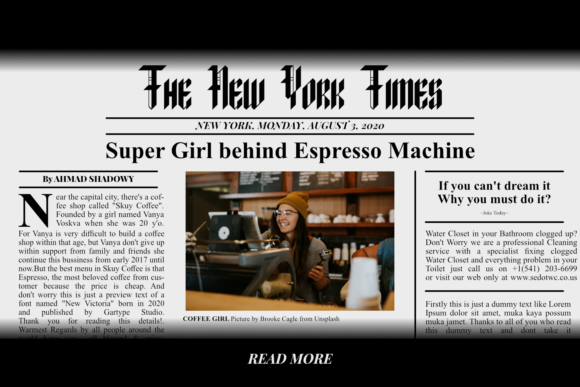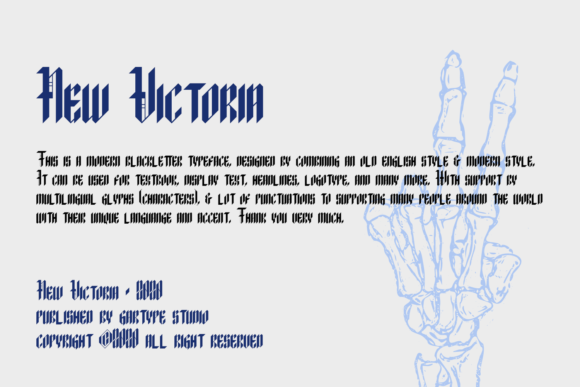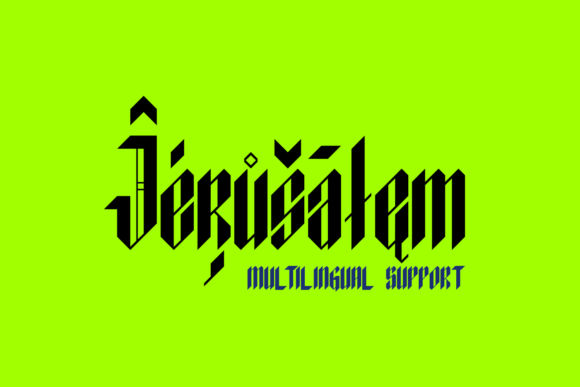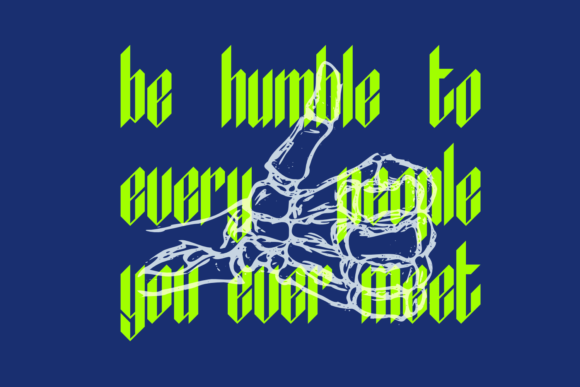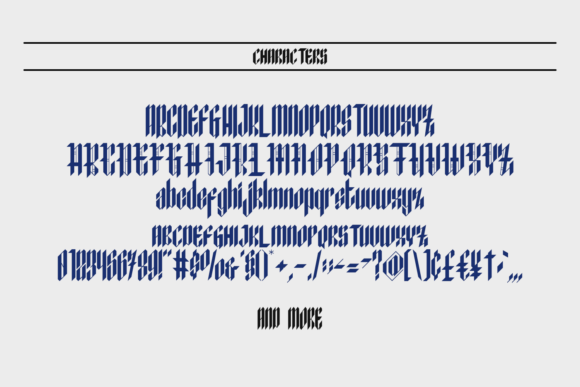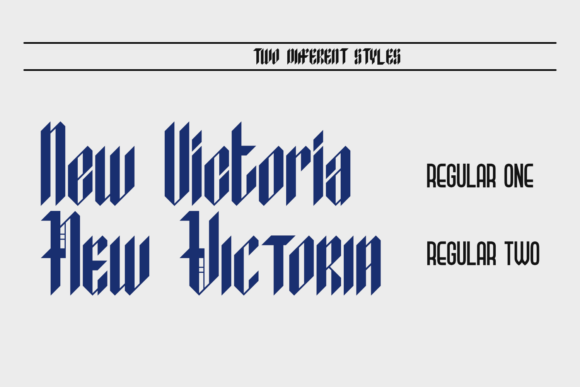
Introduction to New Victoria Font
New Victoria is an incredibly distinct blackletter font.
Add it to your creative ideas and notice how it makes them stand out .
Key Features of New Victoria Font
Why Choose New Victoria Font?
New Victoria Font offers exceptional quality and versatility, making it a valuable addition to your design toolkit. Whether you’re creating for personal projects or commercial use, New Victoria Font delivers professional results.